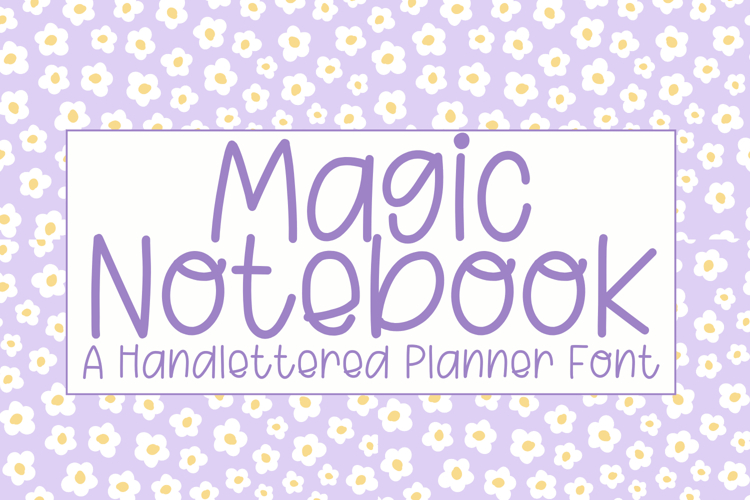
Bring a touch of whimsy to your planners, notebooks, and creative projects with Magic Notebook, a playful handlettered font designed especially for planners and journaling lovers. ✨
This font has a clean, handwritten style that feels cozy and fun—perfect for planner headers, digital stickers, bullet journals, scrapbooking, note-taking, and DIY stationery. Its tall, rounded letters make it super readable while keeping that hand-drawn charm.
Magic Notebook is great for: